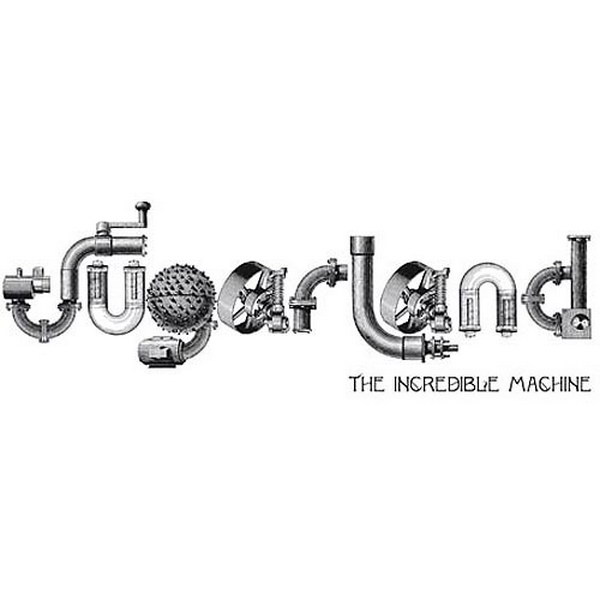
The Incredible Machine Font
The album title is written in an Art Nouveau style, resembling the Monopol font designed by George Williams. This font offers a comprehensive set of characters and can be downloaded for free from the Fonts Used Section.